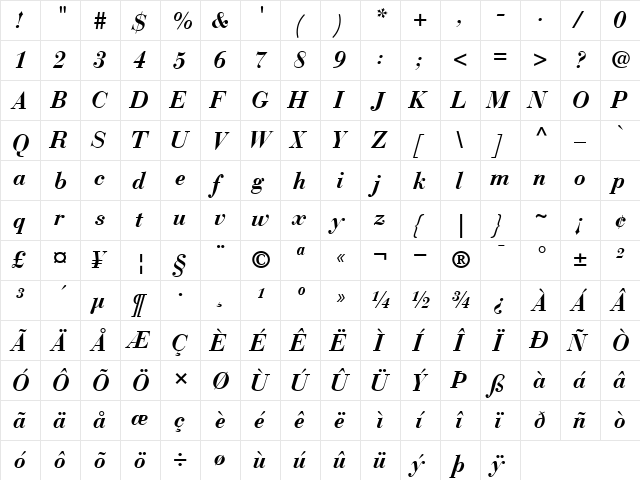
BauerBodoni BoldItalic
Design Context for BauerBodoni Typeface
BauerBodoni is a composed and adaptable typeface that performs quietly and consistently across a wide range of design contexts. The dynamic lean of this cut emphasises speed and emphasis in any layout. Its bold stroke weight gives it real presence on the page.
Pro Tip: Try BauerBodoni for annotation and caption copy alongside an upright companion — the contrast in angle creates a dynamic but ordered typographic system.